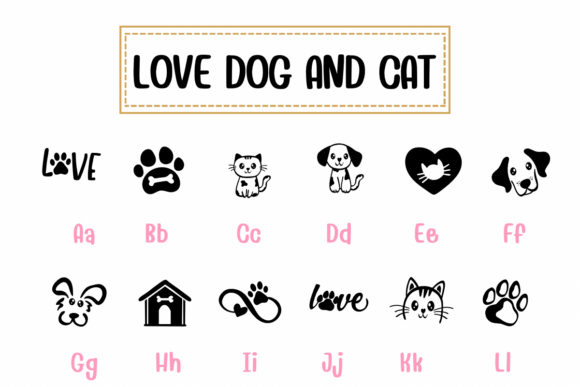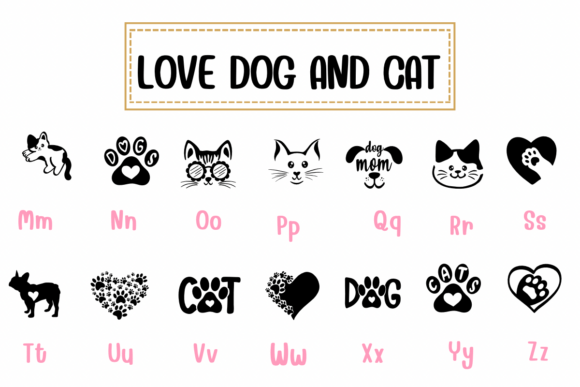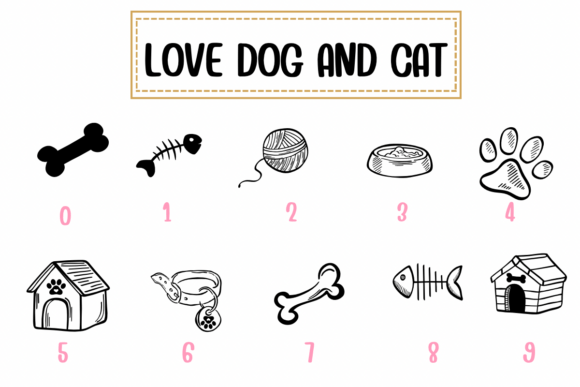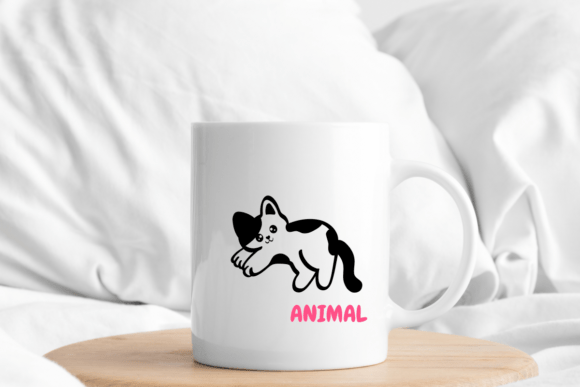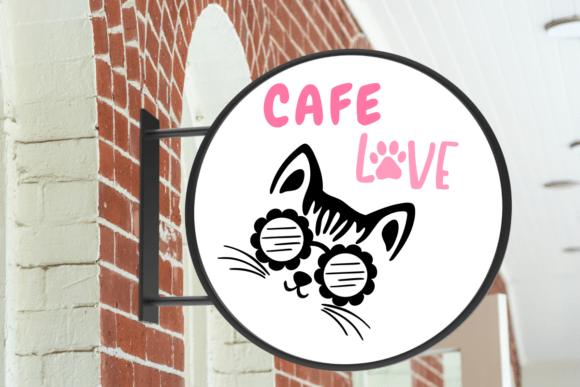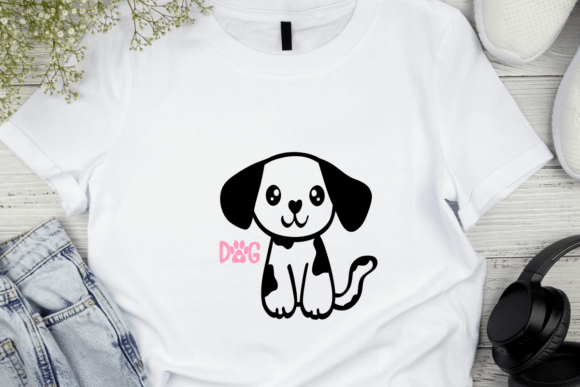
Introduction to Love Dog and Cat Font Font
Fonts play a crucial role in design, and the Love Dog and Cat Font font is a typeface that brings both character and versatility to any project. Whether you’re working on a branding project, a website, or a print design, the Love Dog and Cat Font font offers a unique style that can elevate your work.
Celebrate your love for furry friends with the Love and Dog Cat Dingbats Font.
This playful font features a collection of adorable dog and cat-themed illustrations, including paw prints, hearts, fishbones, and pet accessories Ideal for pet branding, greeting cards, crafting projects, and more, this font brings a fun and heartwarming touch to your designs.
Key Features of Love Dog and Cat Font Font
Why Choose Love Dog and Cat Font Font?
The Love Dog and Cat Font font is more than just a typeface – it’s a design tool that helps you communicate your message with style and clarity. Its unique character set and versatile design make it suitable for a wide range of applications, from elegant invitations to bold headlines.
With its carefully crafted letterforms and balanced proportions, the Love Dog and Cat Font font ensures readability and visual appeal across all mediums.
What makes Love Dog and Cat Font font special?
The Love Dog and Cat Font font stands out with its unique design, exceptional readability, and versatility across various design applications.